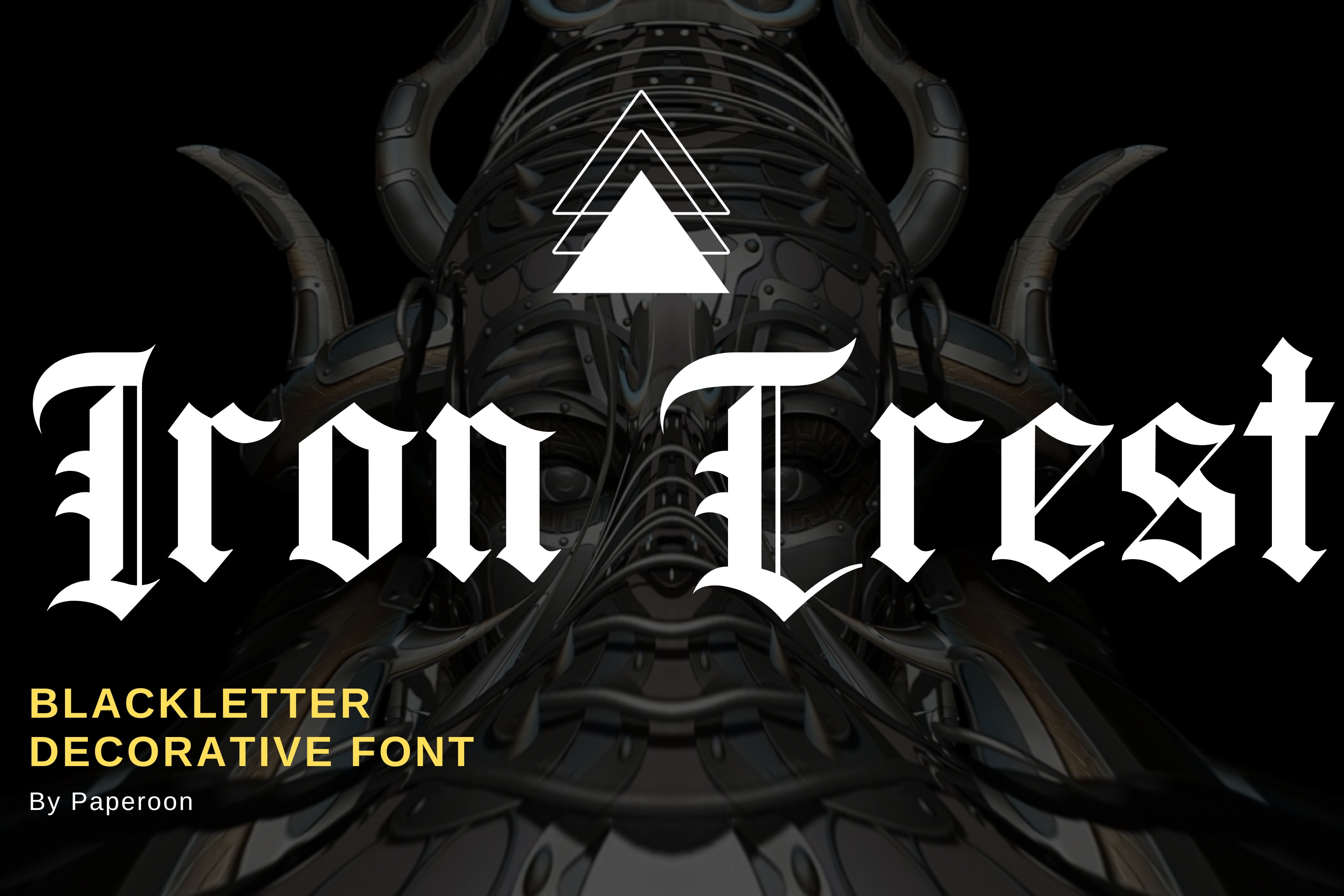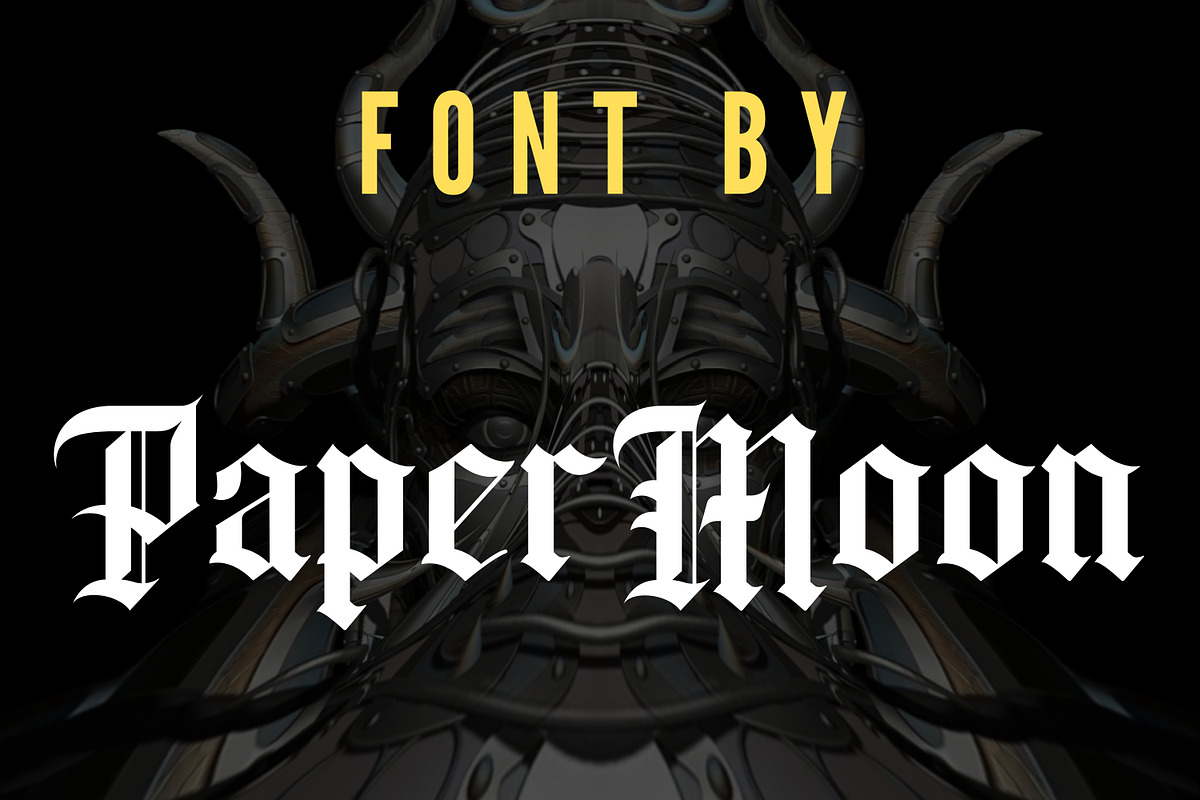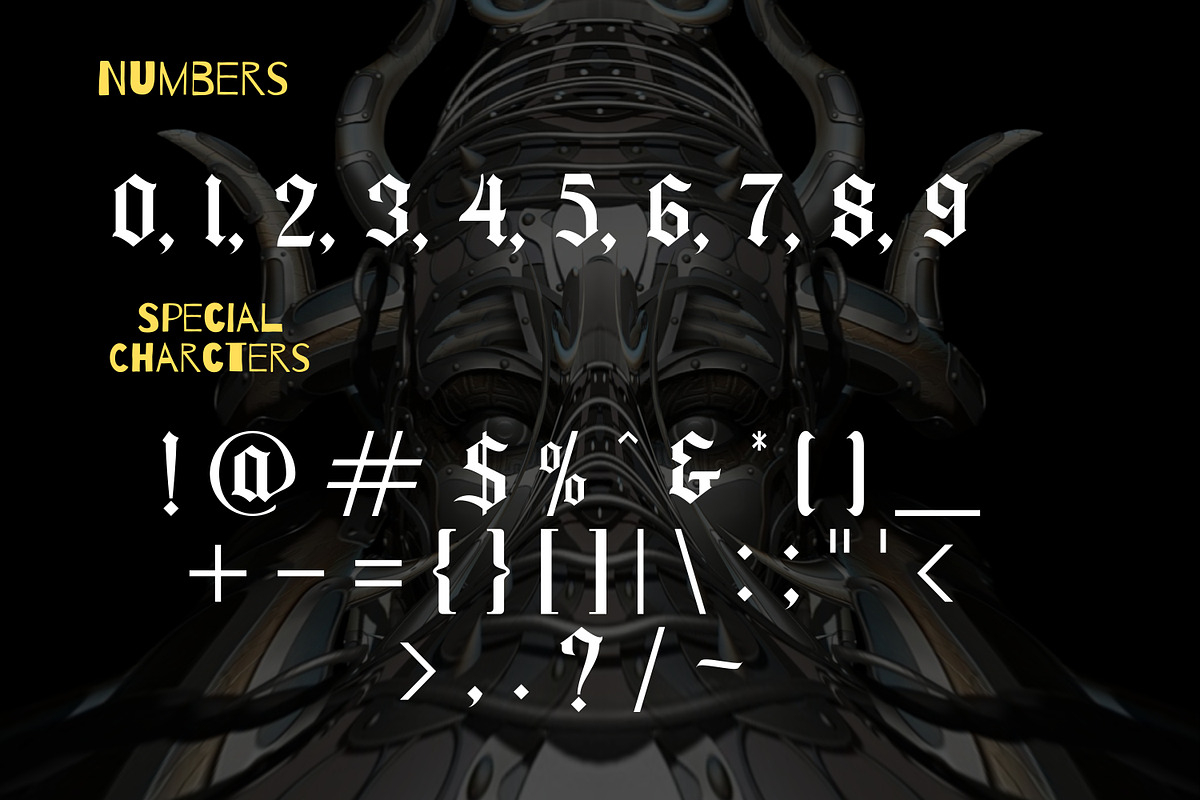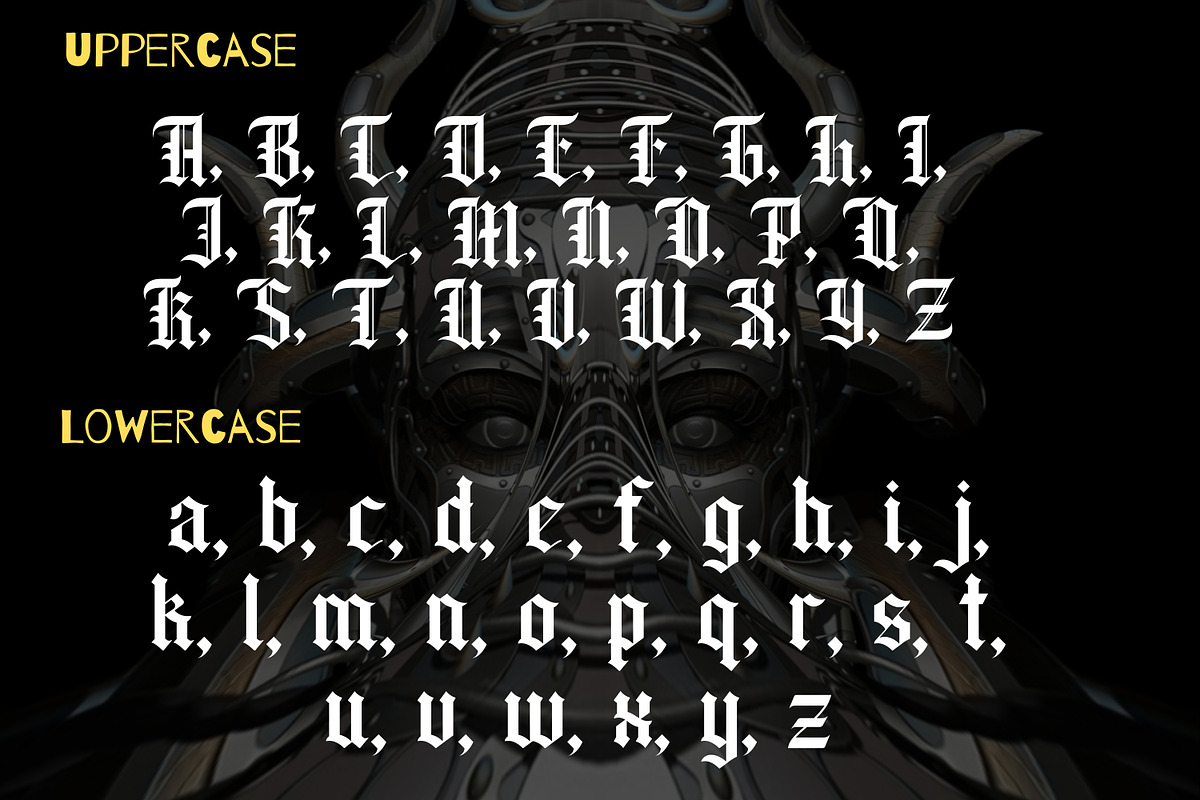
IronCrest - A Blackletter Font
Introducing IronCrest: A Unique Blackletter Decorative Font
Dive into the captivating realm of IronCrest, a blackletter decorative font that exudes unparalleled uniqueness. This font is your key to adding a touch of gothic artistry to a plethora of projects, whether it's tattoo design, striking headlines, arresting posters, classic magazine layouts, vintage newspaper aesthetics, trendy t-shirt graphics, eye-catching labels, or any design endeavor that demands a bold and distinctive typeface.
Stylistic Alternates: Unlock a world of stylistic variation in your typography.
Ligatures: Craft visually appealing letter combinations effortlessly.
Uppercase and Lowercase Letters: Versatility for all your text needs.
Numbering and Punctuations: Complete your compositions with ease.
Multilingual Support: Reach a global audience with ease.